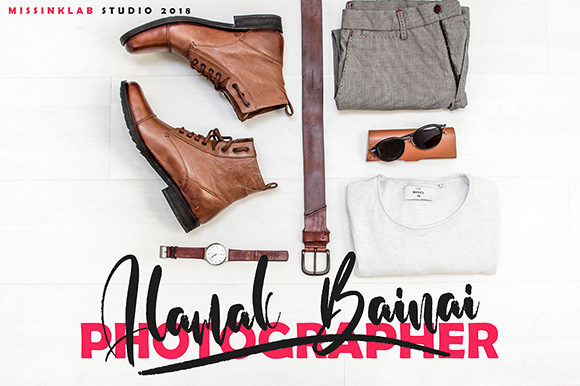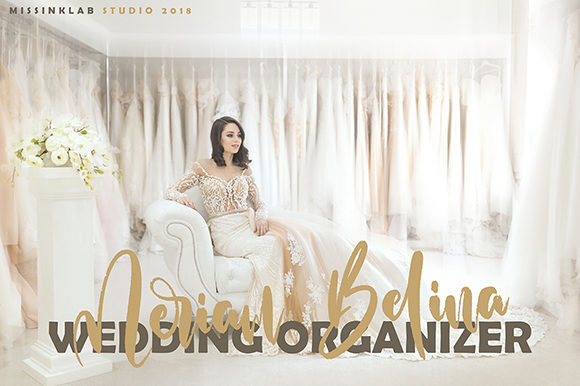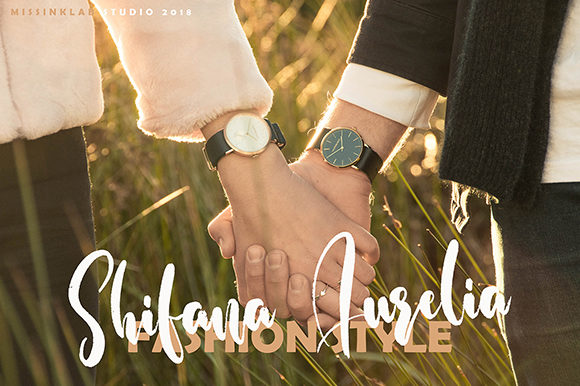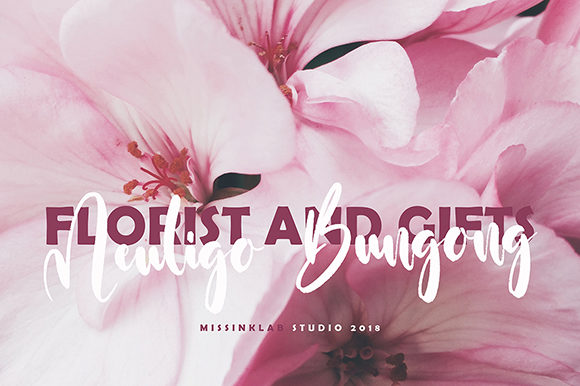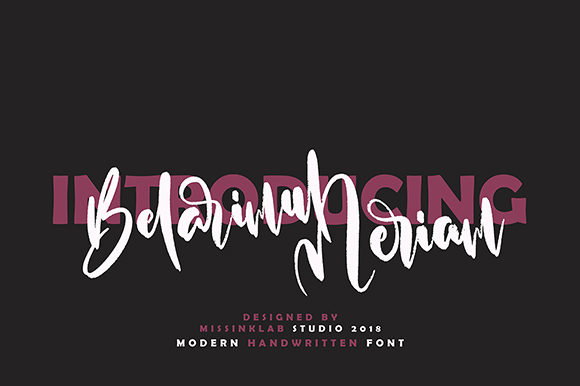
Discover the Timeless Charm of Belarimul Meriam Font
Are you a designer or crafter looking for a unique and captivating font to elevate your creative projects? Look no further than the Belarimul Meriam Font, a stunning handwritten font with a contemporary twist that’s sure to leave a lasting impression. In this article, we’ll dive into the world of Belarimul Meriam, exploring its features, benefits, and uses, as well as provide tips on how to make the most of this beautiful font.
What is Belarimul Meriam Font?
Belarimul Meriam is a one-of-a-kind handwritten font that seamlessly blends traditional and modern elements. Its unique charm lies in its ability to evoke a sense of timelessness, making it perfect for projects that require a touch of elegance and sophistication. Whether you’re working on a branding campaign, a craft project, or a digital design, Belarimul Meriam is sure to add a distinctive flair that sets your work apart.
Key Features of Belarimul Meriam Font
- Handwritten with a contemporary twist: Belarimul Meriam boasts a beautiful, handwritten aesthetic with a modern edge that makes it versatile and adaptable.
- Timeless appeal: This font’s unique blend of classic and contemporary elements gives it a timeless quality that ensures it will remain relevant for years to come.
- Highly legible: Despite its ornate appearance, Belarimul Meriam is remarkably easy to read, making it perfect for body text and headlines.
- Extensive character set: This font features a comprehensive character set, including uppercase and lowercase letters, numbers, and punctuation marks.
Benefits of Using Belarimul Meriam Font
So why choose Belarimul Meriam for your next project? Here are just a few benefits of using this exceptional font:
- Adds a personal touch: Belarimul Meriam’s handwritten aesthetic adds a warm, personal touch to any project, making it ideal for brands and craftspeople looking to establish a unique identity.
- Enhances creativity: This font’s unique blend of traditional and modern elements can inspire creativity and help you think outside the box.
- Versatile: Belarimul Meriam can be used for a wide range of projects, from digital designs and branding campaigns to craft projects and stationery.
Tips for Using Belarimul Meriam Font
To get the most out of Belarimul Meriam, here are a few tips to keep in mind:
- Pair with complementary fonts: Combine Belarimul Meriam with clean, modern fonts to create visual interest and add depth to your design.
- Experiment with colors: This font looks stunning in a range of colors, from rich jewel tones to soft pastels.
- Use for headlines and body text: Belarimul Meriam’s high legibility makes it perfect for both headlines and body text.
Who Can Benefit from Belarimul Meriam Font?
Belarimul Meriam is a versatile font that can benefit a wide range of designers and crafters, including:
- Graphic designers: Add a touch of elegance and sophistication to your branding campaigns and digital designs.
- Crafters: Elevate your craft projects, such as handmade cards, gift tags, and stationery.
- Stationery designers: Create beautiful, unique stationery and correspondence with Belarimul Meriam.
In conclusion, Belarimul Meriam Font is a unique and captivating handwritten font with a contemporary twist that’s sure to leave a lasting impression. Its timeless appeal, highly legible design, and extensive character set make it perfect for a wide range of projects, from digital designs and branding campaigns to craft projects and stationery. Whether you’re a designer or crafter, Belarimul Meriam is sure to add a distinctive flair to your work.